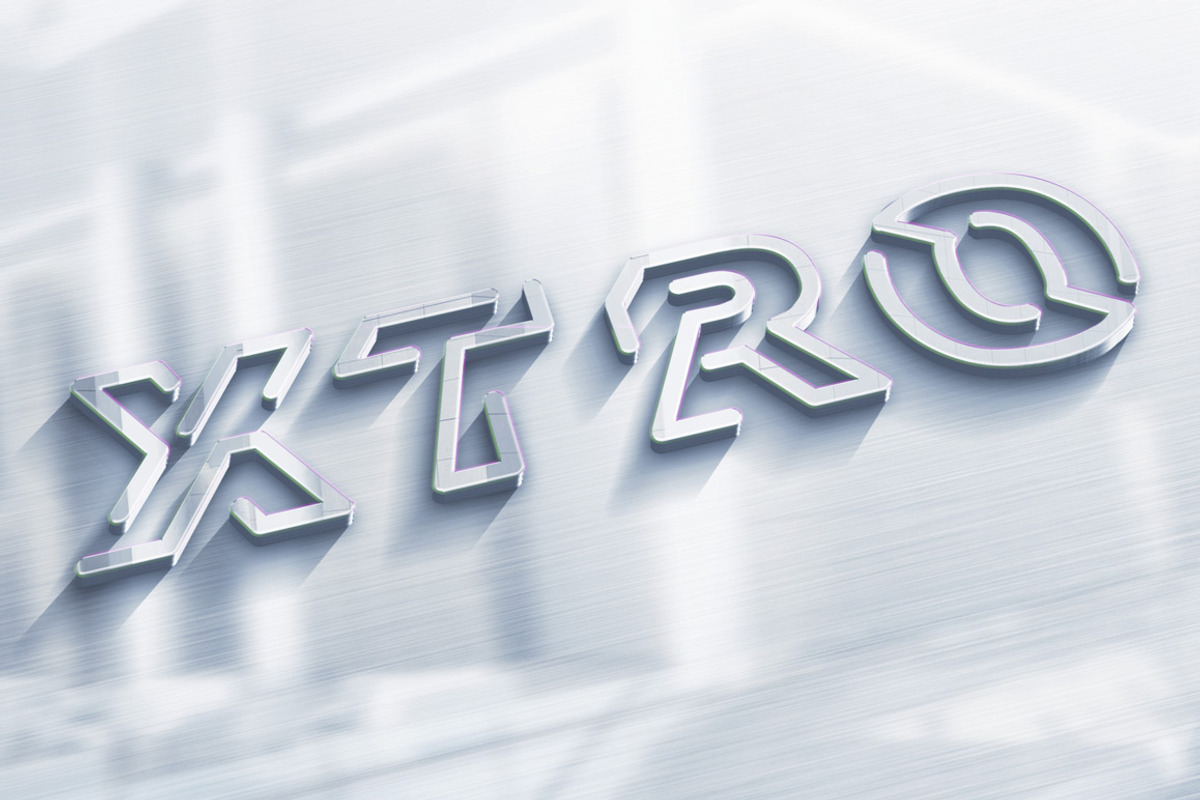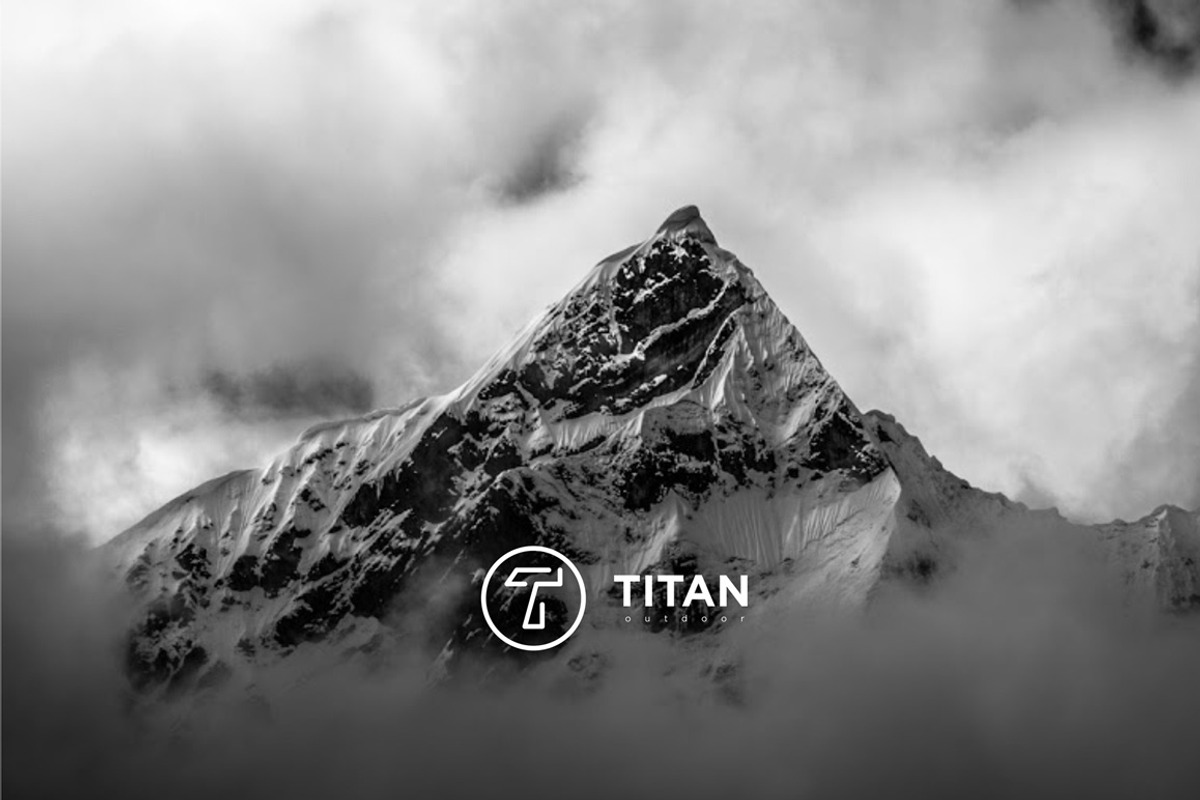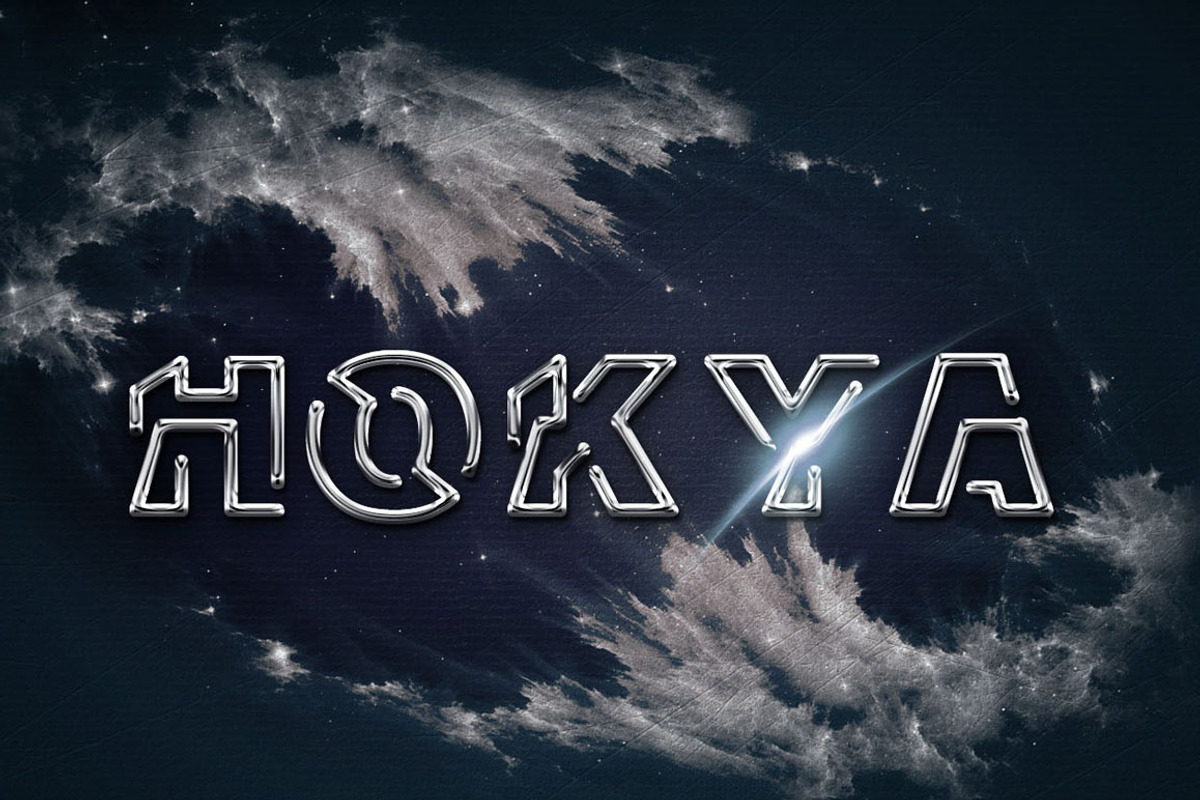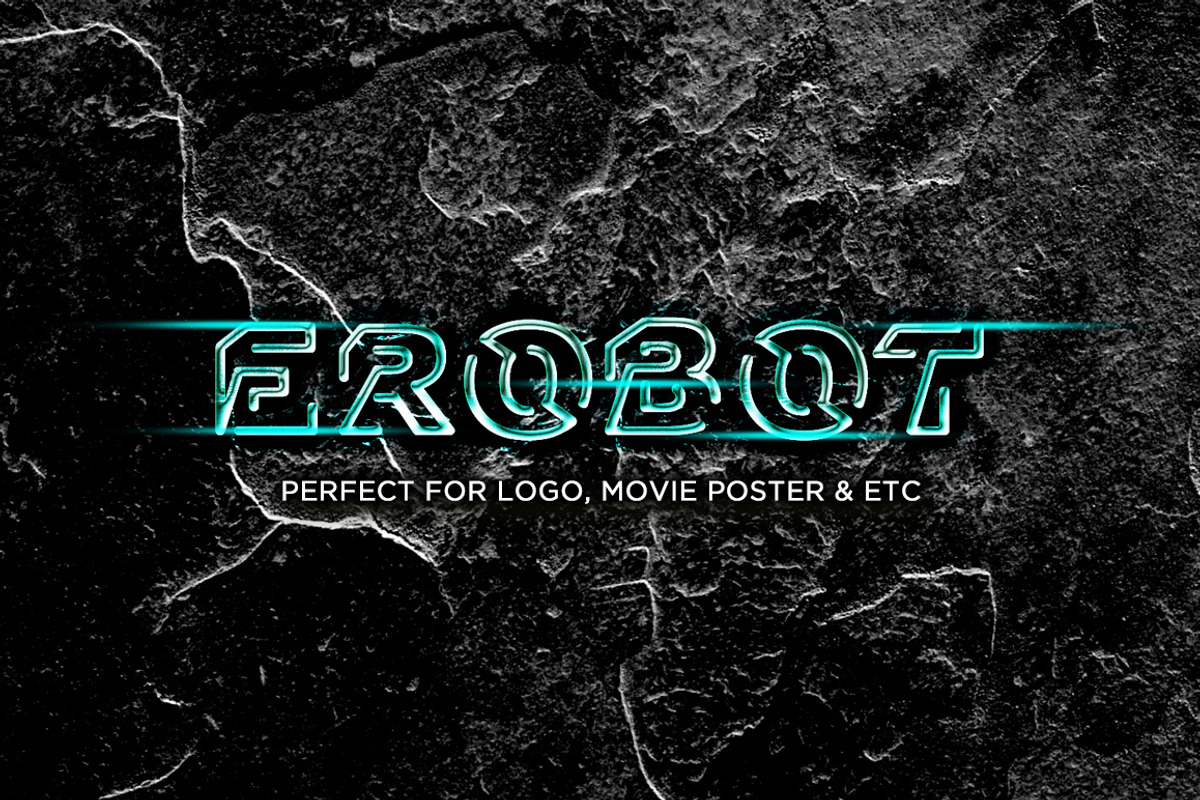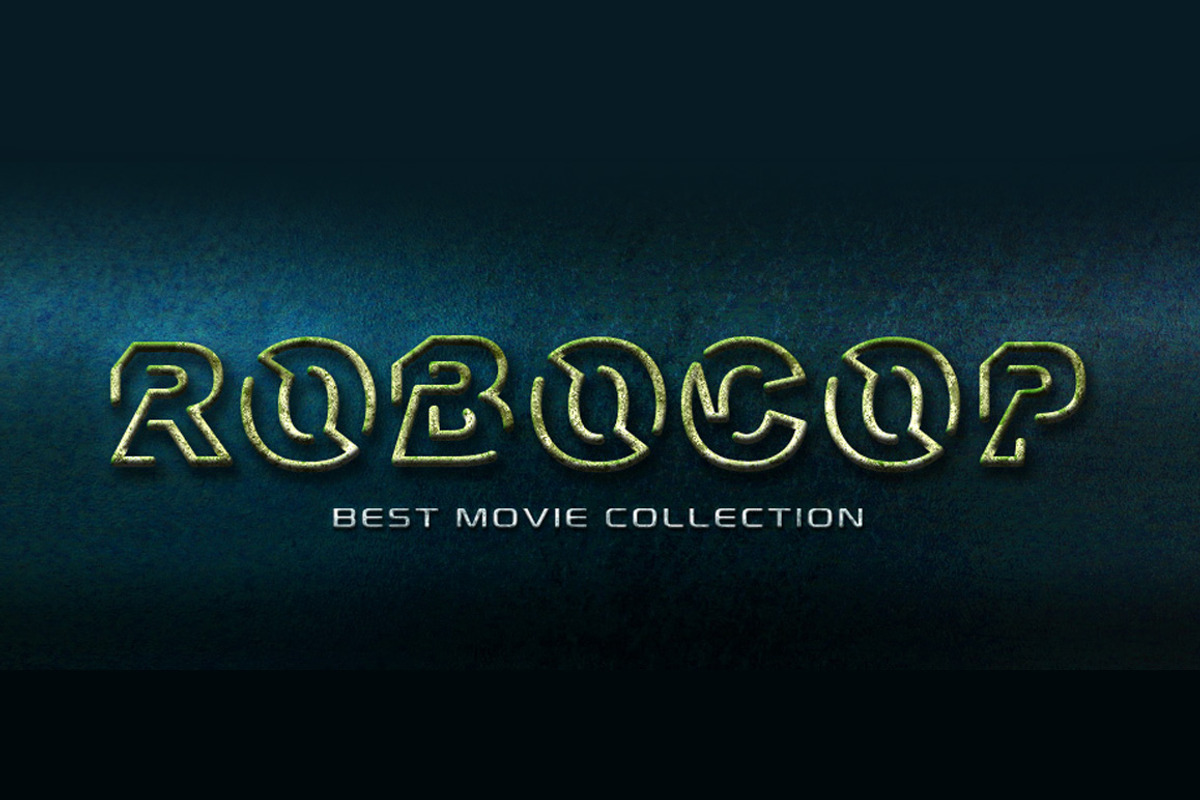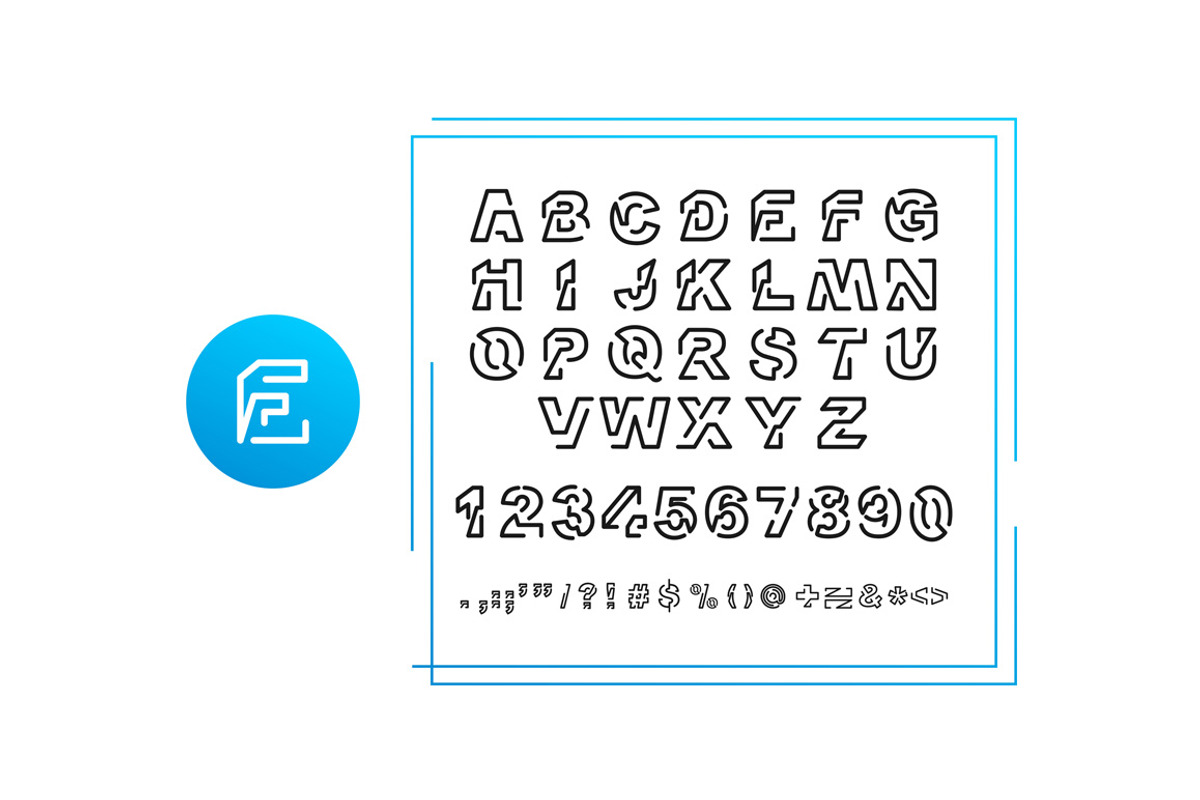
EROBOT Typeface
EROBOT Typeface by lemahijo is a font selected for branding, posters, packaging, typography.
Why EROBOT Typeface is worth a look
EROBOT Typeface by lemahijo fits naturally into Branding, posters, packaging, typography.